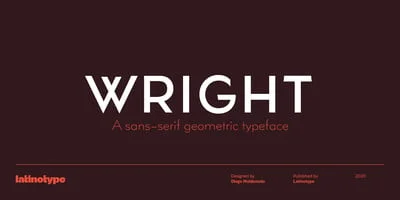
Wright Font
Wright Font is perfect for architectural design projects including construction company branding, architectural firm logos, building development materials, engineering consultancy signage, urban planning documents, real estate marketing campaigns, interior design portfolios, and structural engineering presentations. This professional typeface excels in blueprint designs, construction industry catalogs, architectural magazine layouts, building material packaging, and projects celebrating design innovation and structural excellence.
What makes Wright Font exciting is its architectural precision that perfectly embodies the principles of structural integrity and design excellence. The font features clean, geometric letterforms with engineered proportions that reflect the mathematical beauty and functional efficiency of modern architecture. Its systematic design elements capture the essence of blueprint accuracy and construction craftsmanship, making it ideal for projects that need to convey professionalism, technical expertise, and innovative design thinking. The carefully calculated spacing and structural balance create visual harmony reminiscent of architectural masterpieces.
Wright Font comes in multiple family variations including thin, light, regular, medium, bold, and heavy weights. Each style maintains the distinctive architectural character while offering different levels of visual structure and engineering presence. The font family includes blueprint alternates, structural ligatures, and construction variations that provide designers with comprehensive options for creating truly professional and architecturally sound typographic foundations.
Whether you're designing architectural branding, creating construction marketing materials, or developing building industry promotional graphics, Wright Font provides the perfect typographic blueprint for projects that celebrate design innovation and structural excellence. This exceptional typeface transforms standard text into compelling expressions of architectural vision and engineering precision. Download this remarkable font today and construct your design projects with typography that builds upon the solid foundation of architectural heritage and contemporary design innovation.